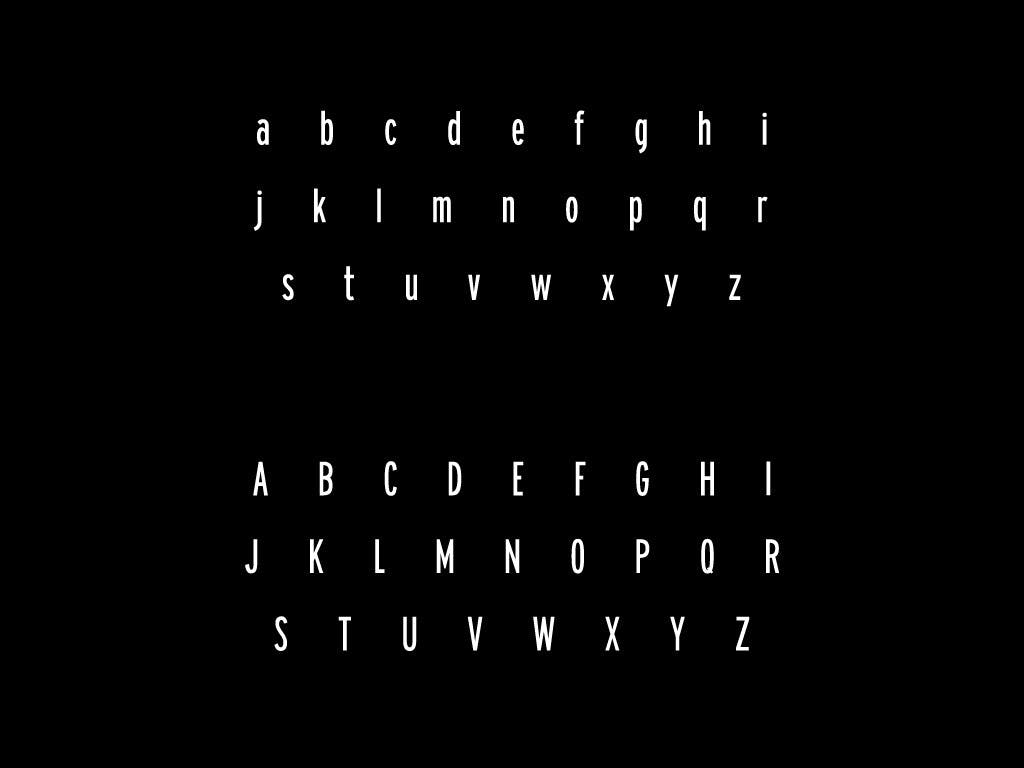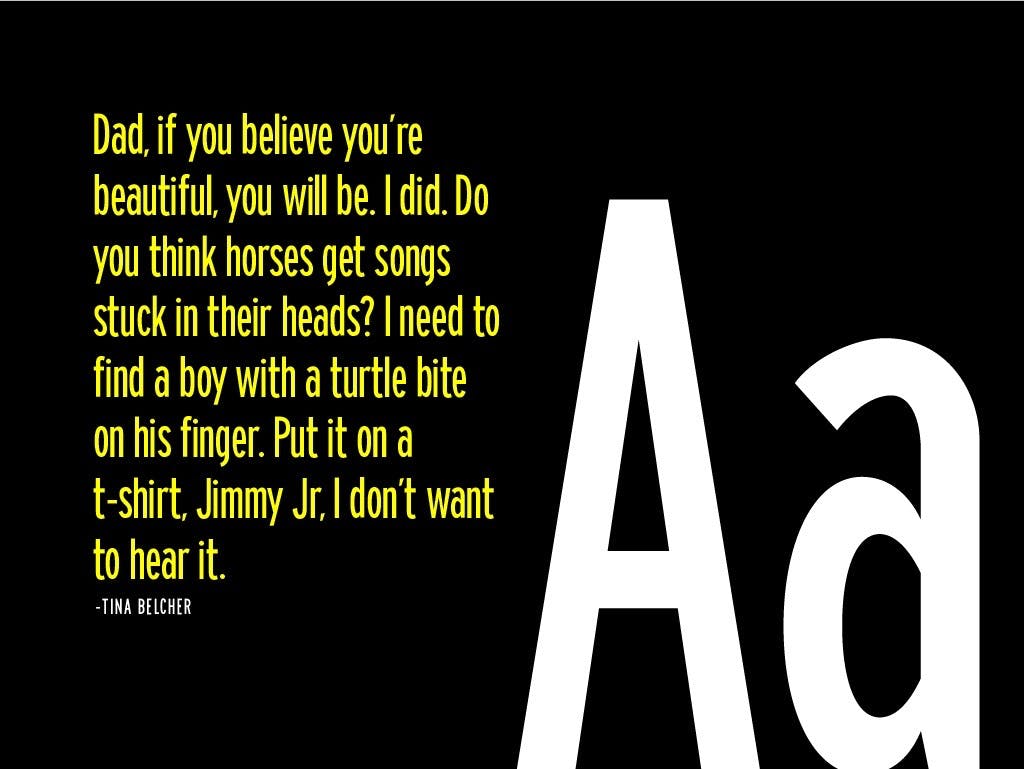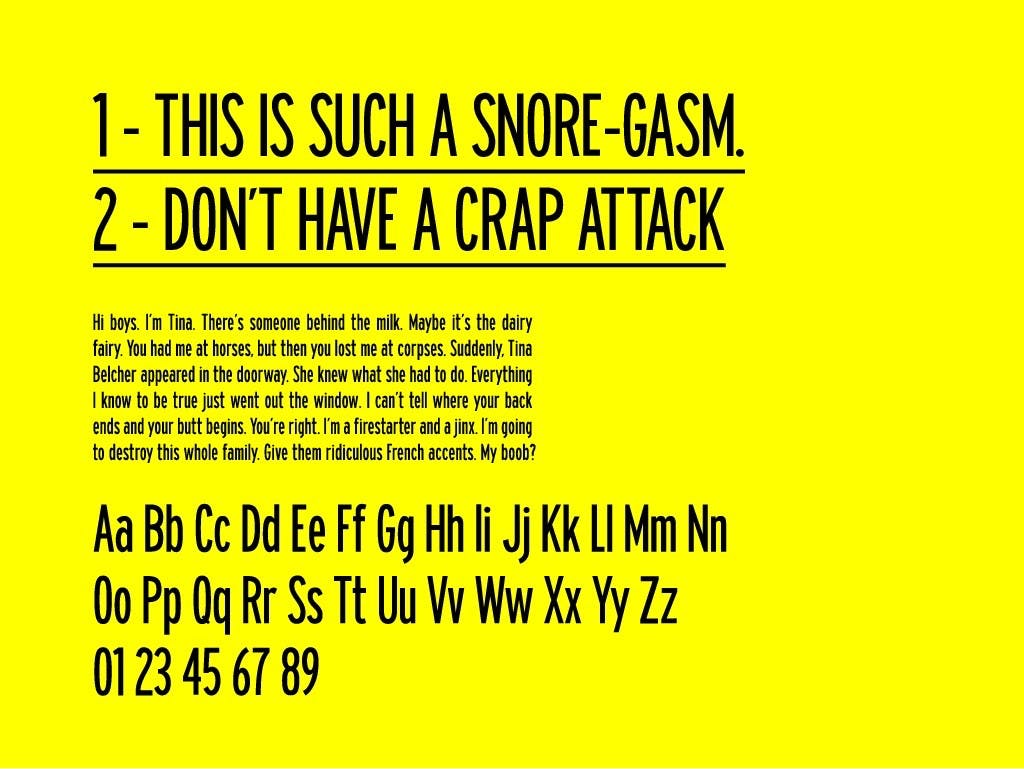
Umhlanga Sans Free Font
Umhlanga Sans free font is the first exploration of the author into type design. It is based on Interstate Regular Compressed designed by Tobias Frere-Jones. At present, the typeface contains the regular font weight, all uppercase, and lowercase characters and numerals. Additional symbols and potentially weights & variants will be added at a later date.